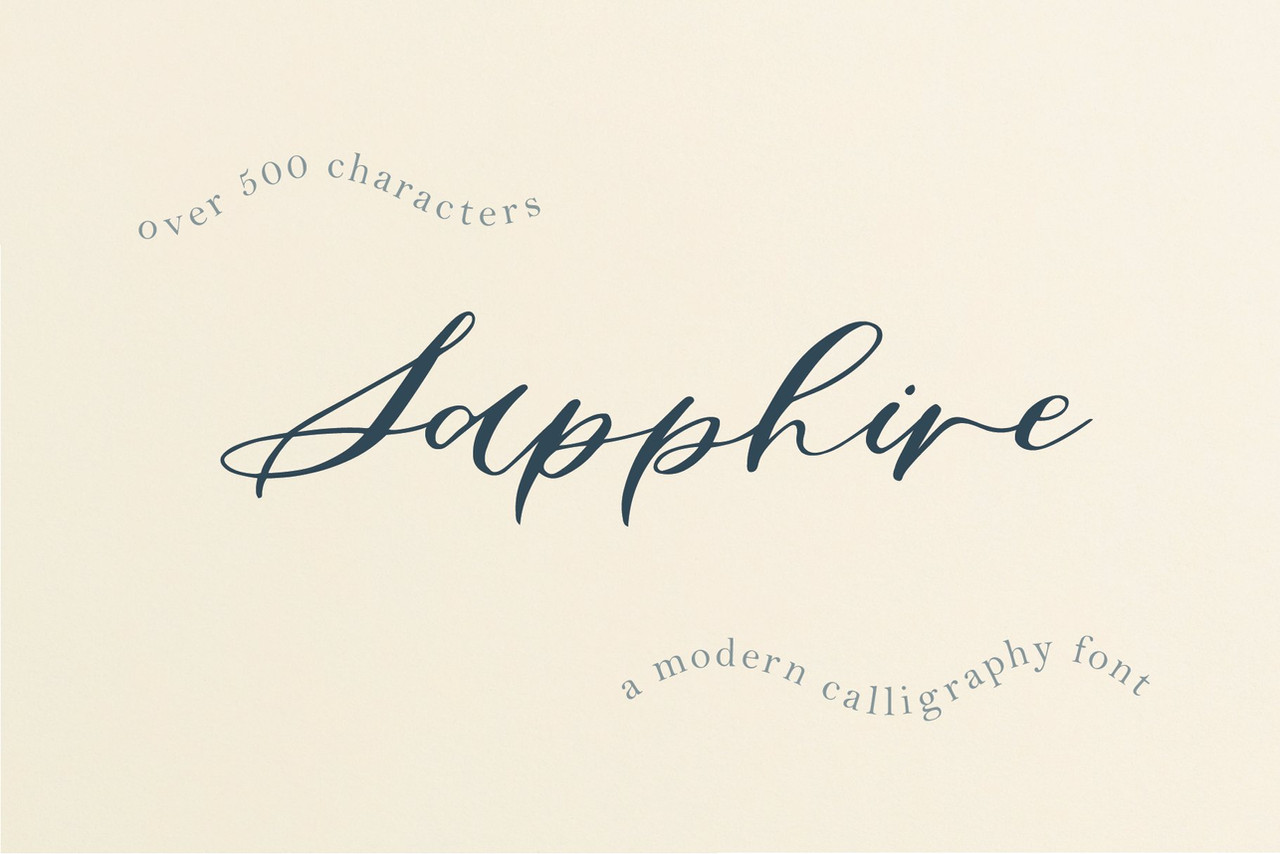
Sapphire Script is a hand-lettered modern calligraphy font based on the signature script of Design by Laney. Made with wedding invitations in mind, this font with over 500 playful, romantic characters is perfect for branding, stationery, packaging, social media templates, magazine layouts, artist prints, and more! With 3 or more characters for each uppercase letter and 35 stunning standard ligatures, youll be able to create that perfectly imperfect calligraphy style.